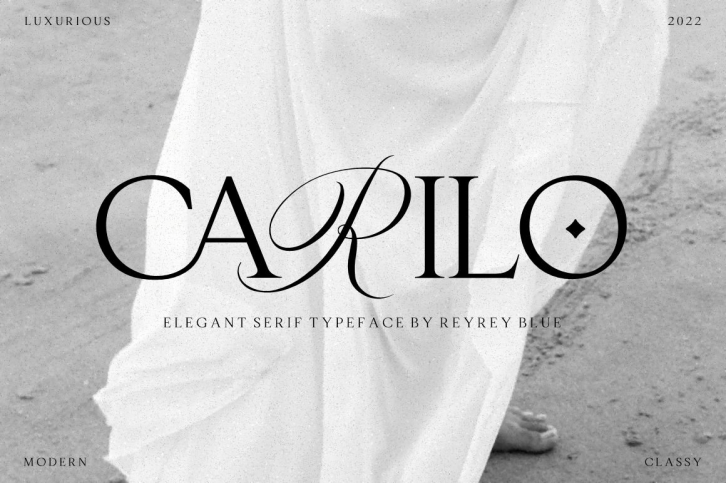
Carilo is a beautiful font that was designed by Reyreyblue. It's a great choice for designers and creatives who need such a font. It was released on June 14, 2022 and the file size is 15.30 MB. Carilo may give a more youthful, expressive and casual look to your project. It is a very beautiful, refined, elegant, and high-quality font.